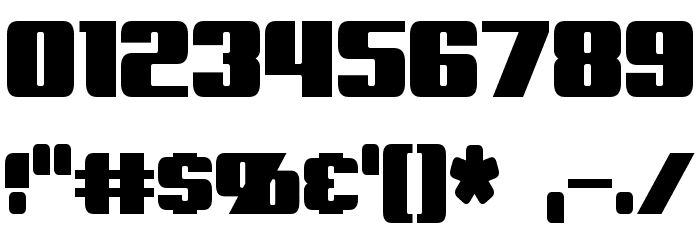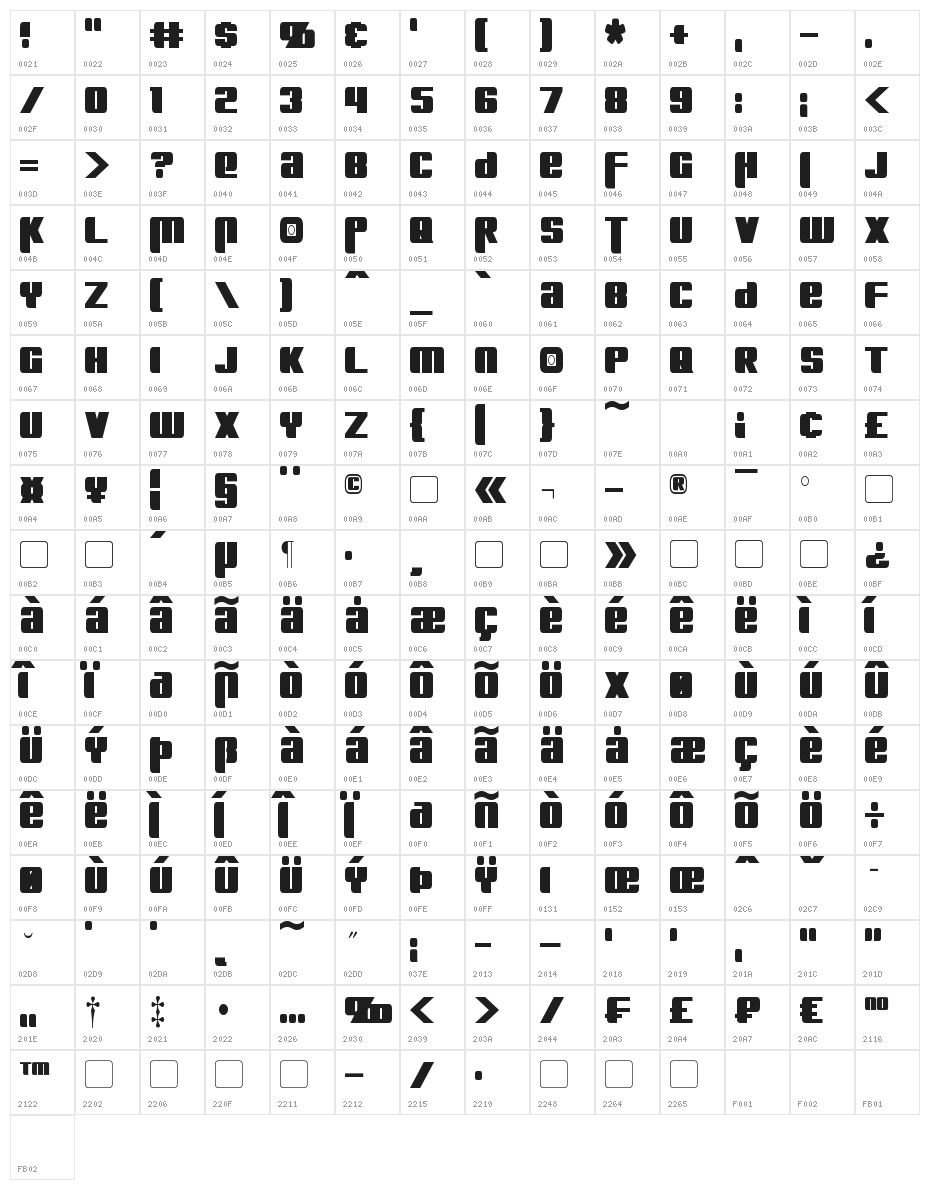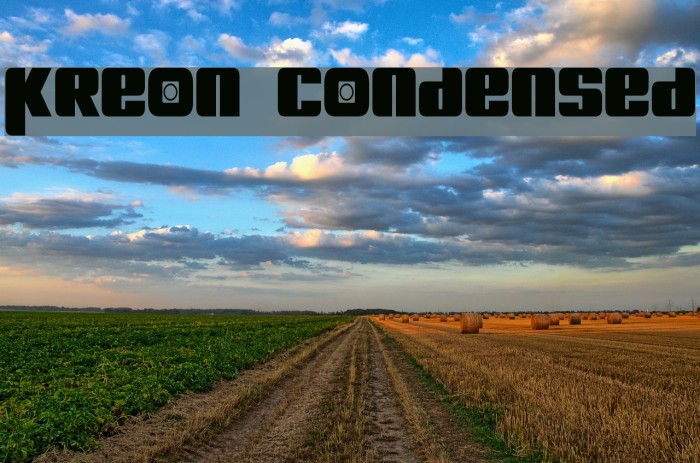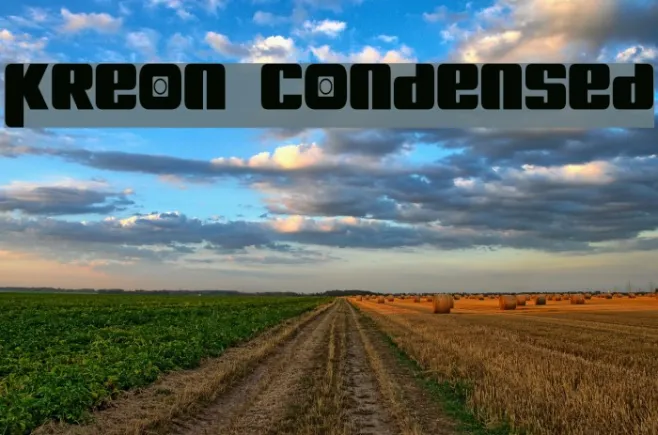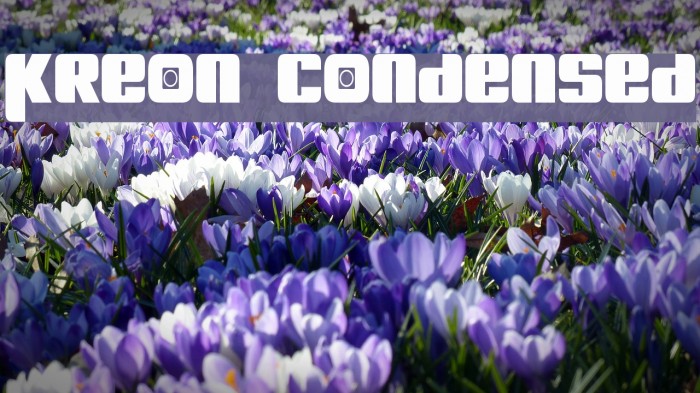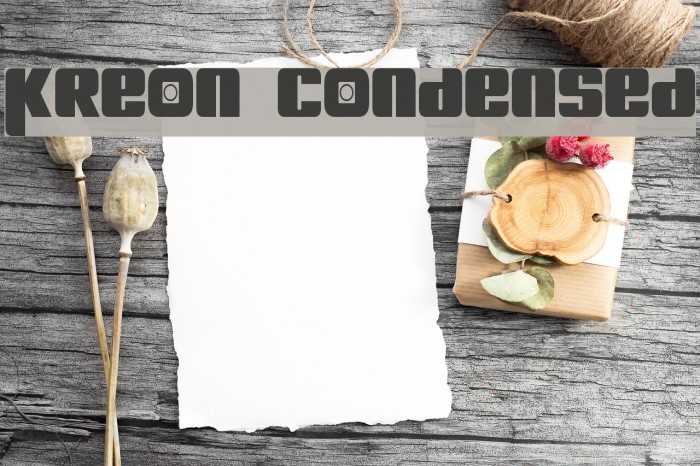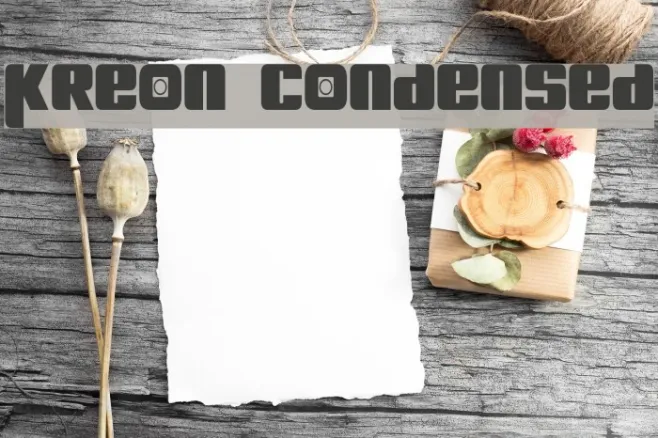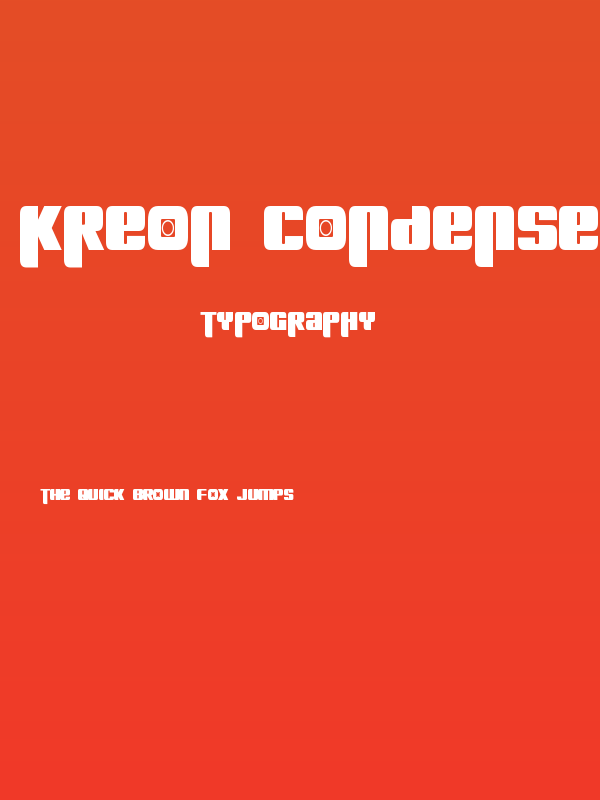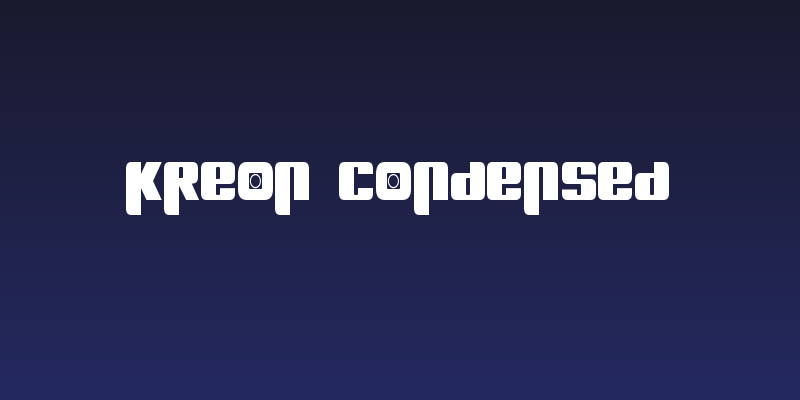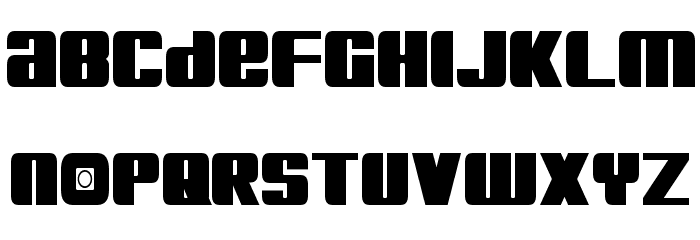
Kreon Condensed Font
Kreon Condensed Description
This font features a bold, geometric style with a condensed width, making it ideal for impactful headlines and attention-grabbing designs. The characters are uniformly thick, with minimal contrast in stroke width, giving it a modern and robust appearance. The uppercase and lowercase letters maintain a consistent height, contributing to its compact and cohesive look. The numbers and special characters are designed to match the boldness of the letters, ensuring a uniform aesthetic throughout. Its strong presence and clear readability make it suitable for various design projects that require a bold statement.